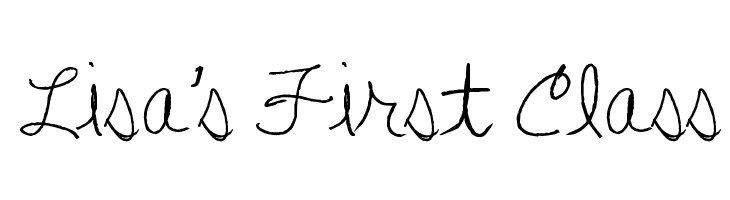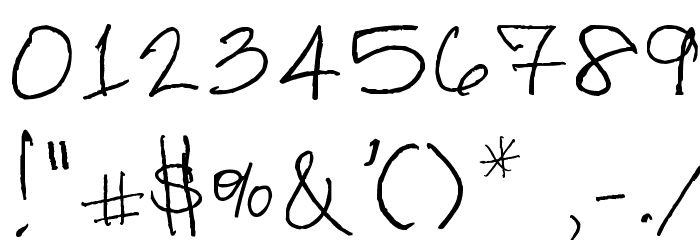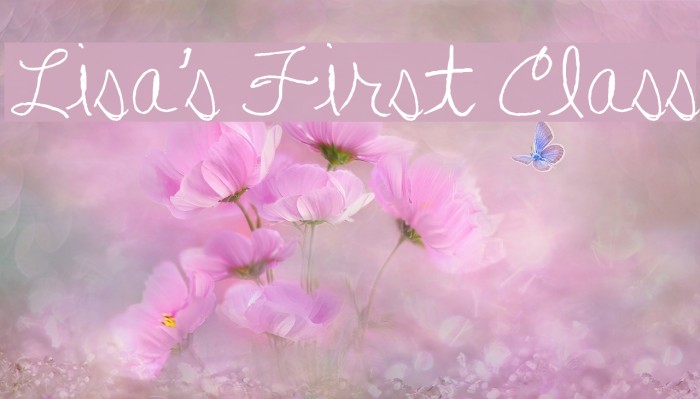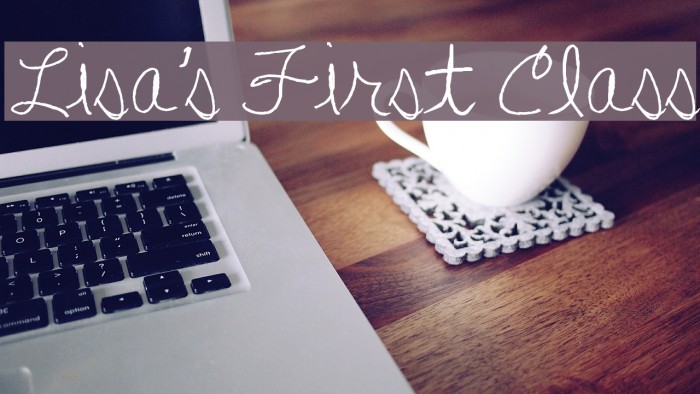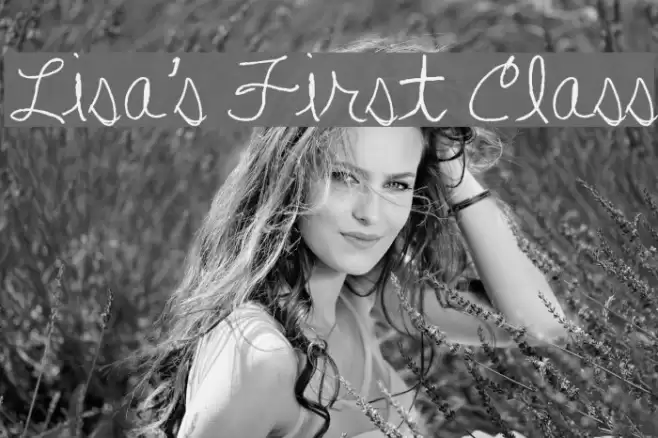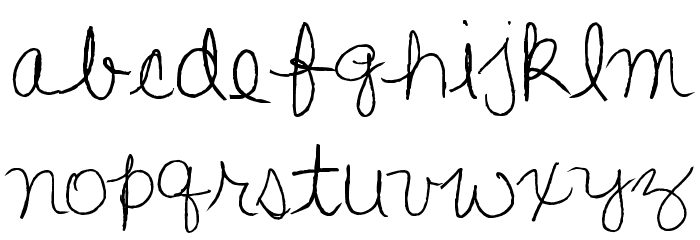
Lisa's First Class Font
Lisa's First Class Description
This font features a playful and whimsical handwritten style, characterized by its flowing, cursive letters. The strokes are uneven, adding a personal and informal touch. The uppercase letters are slightly larger and more elaborate than the lowercase, with unique loops and curves that give each character a distinct personality. Numbers and special characters maintain the same playful style, ensuring consistency across all text elements. The font's organic and freeform nature makes it ideal for projects that require a personal or creative flair.
| Use Case | Logos, Invitations, Greeting Cards |
| Proposed Projects | Ideal for greeting cards, invitations, personal branding, and creative projects that require a personal touch. |